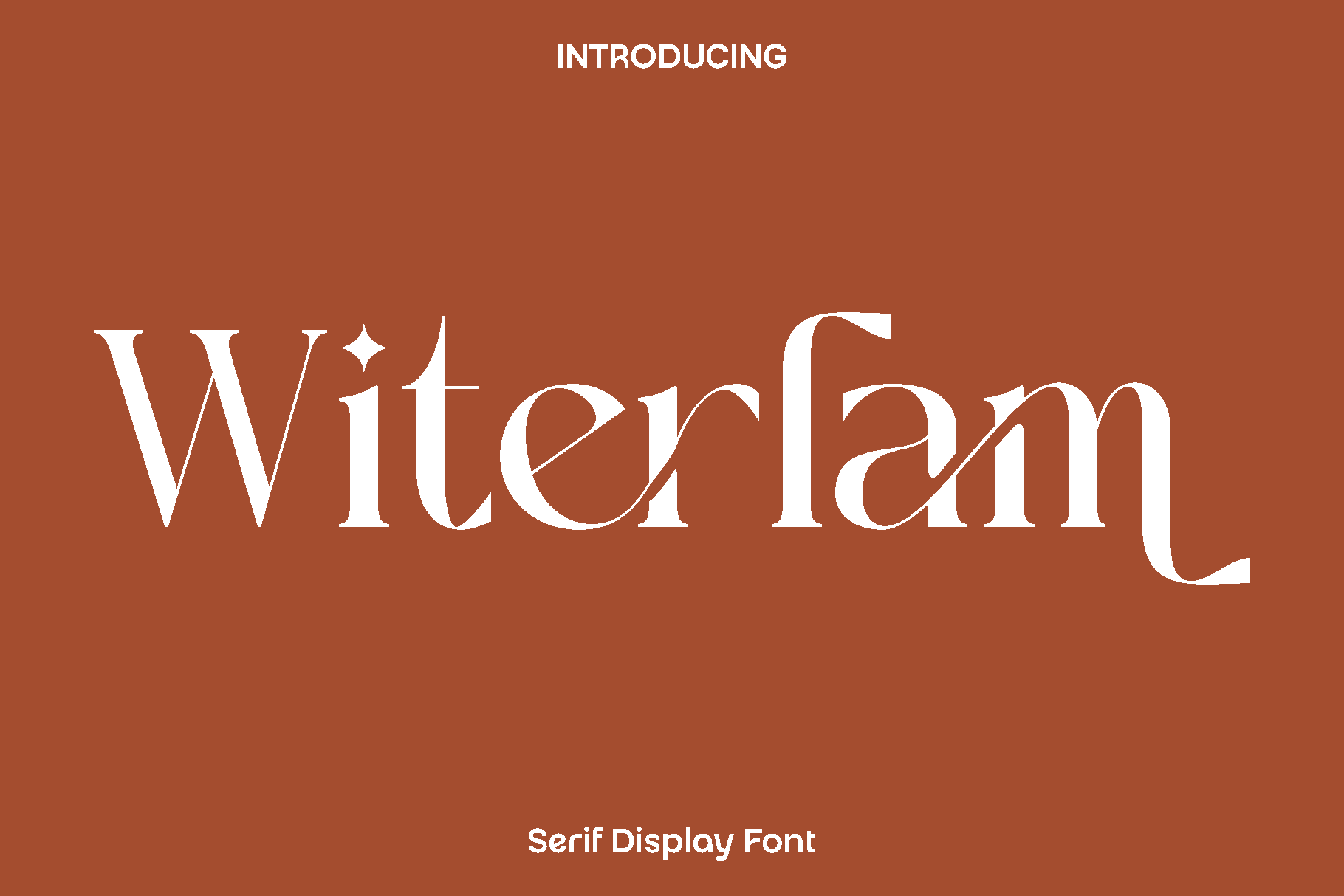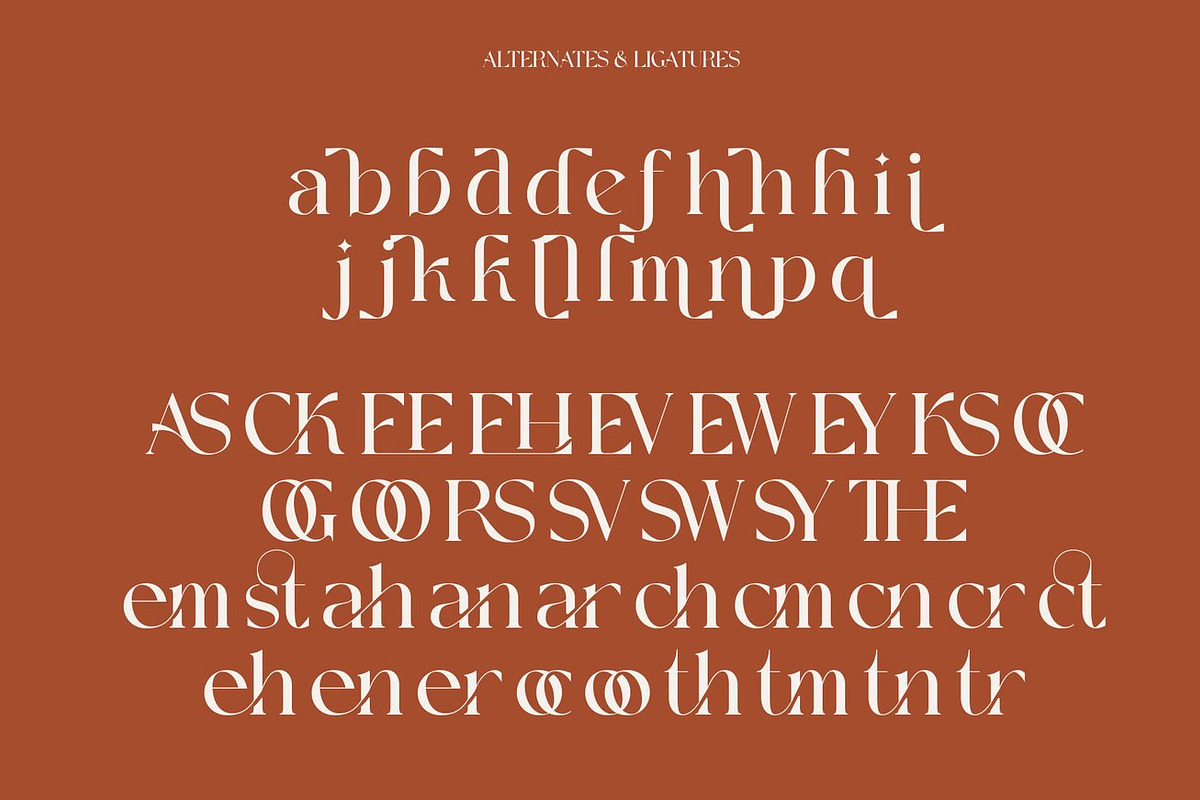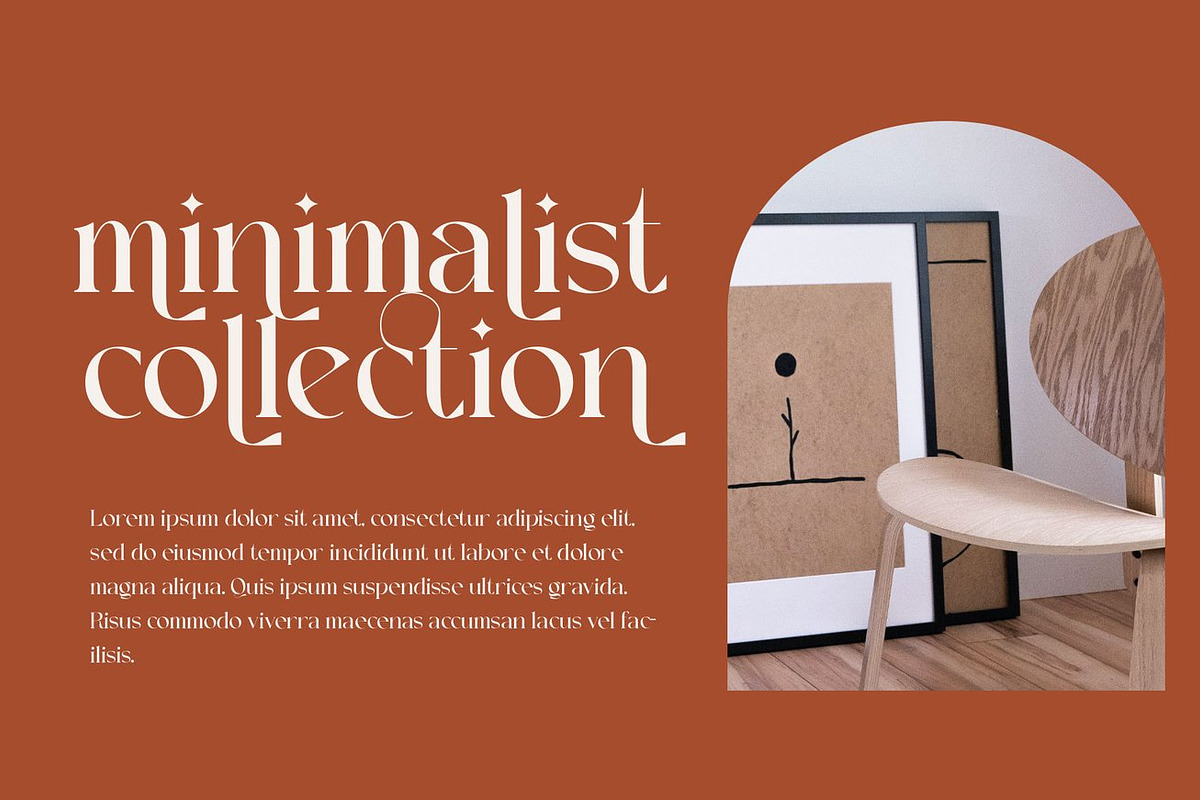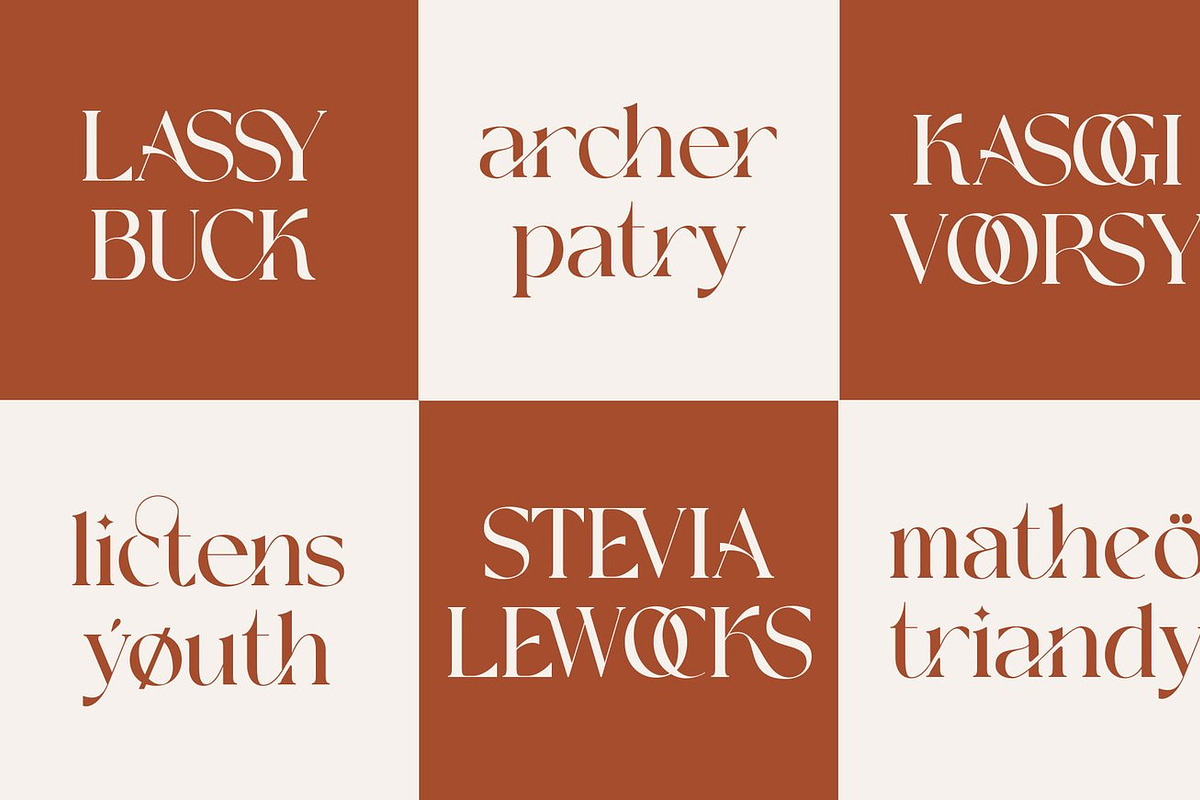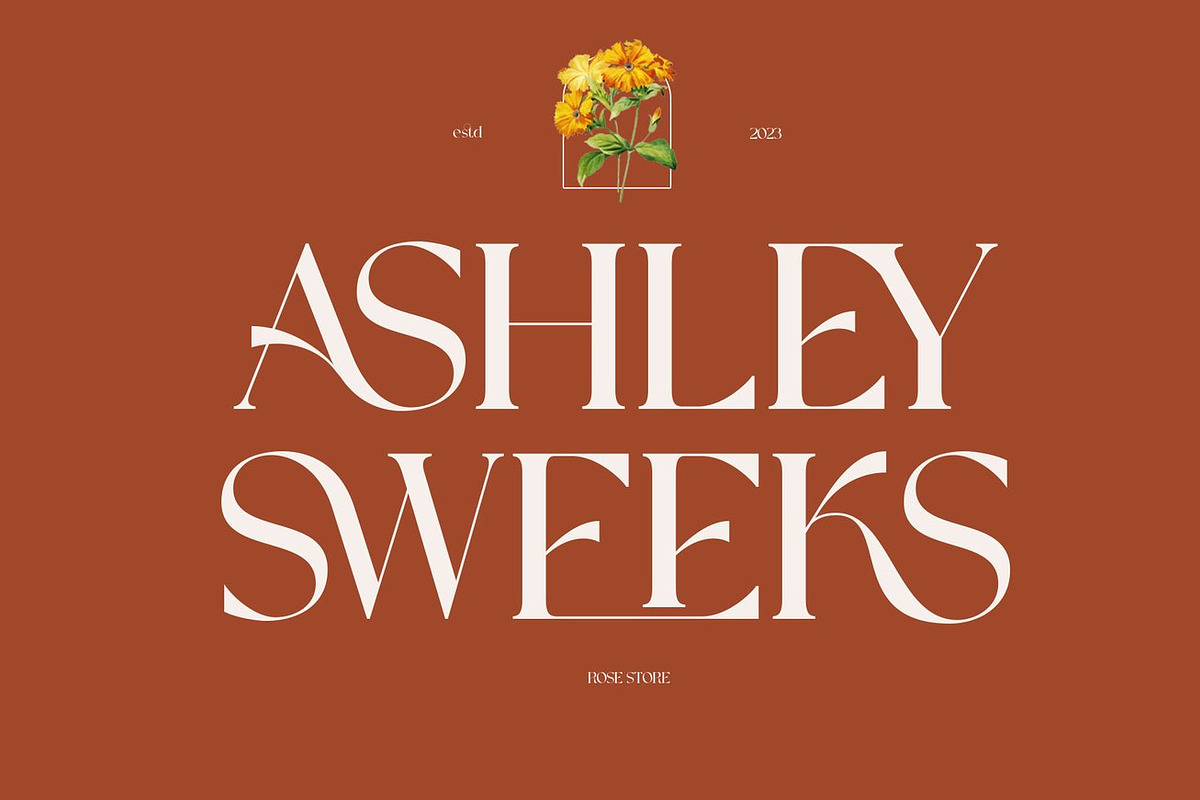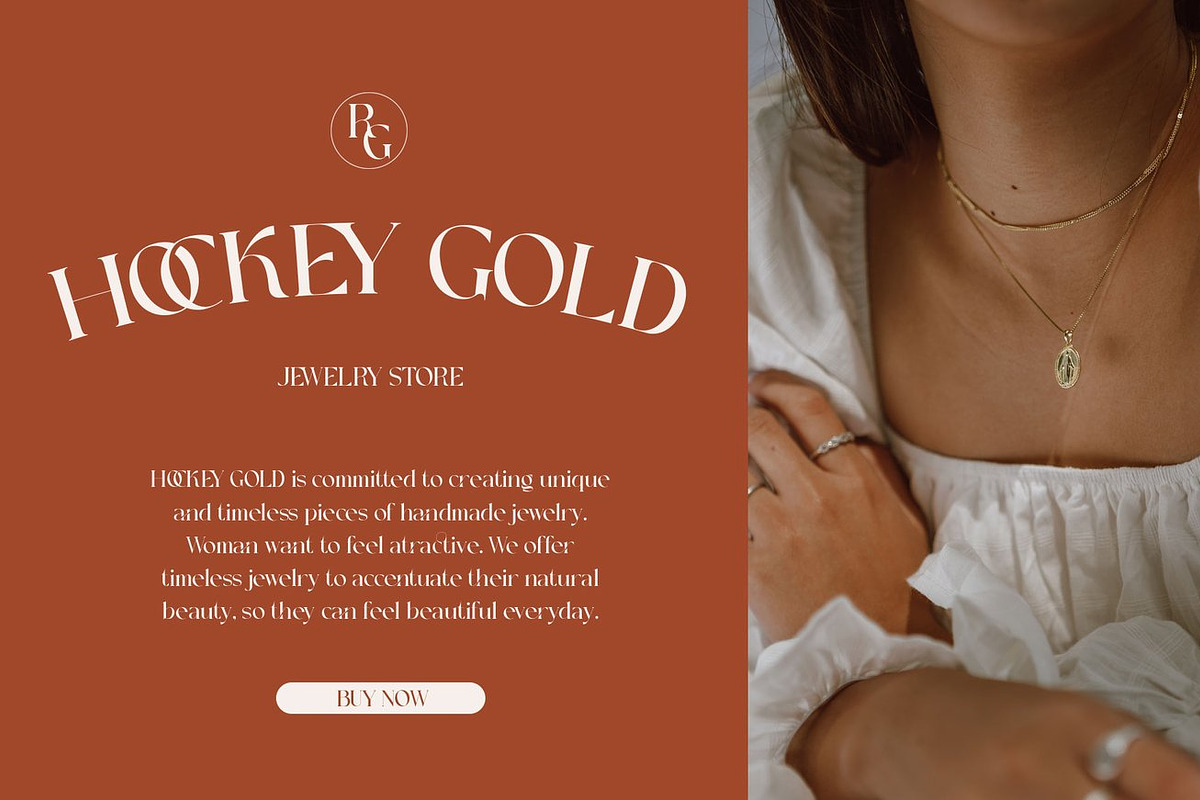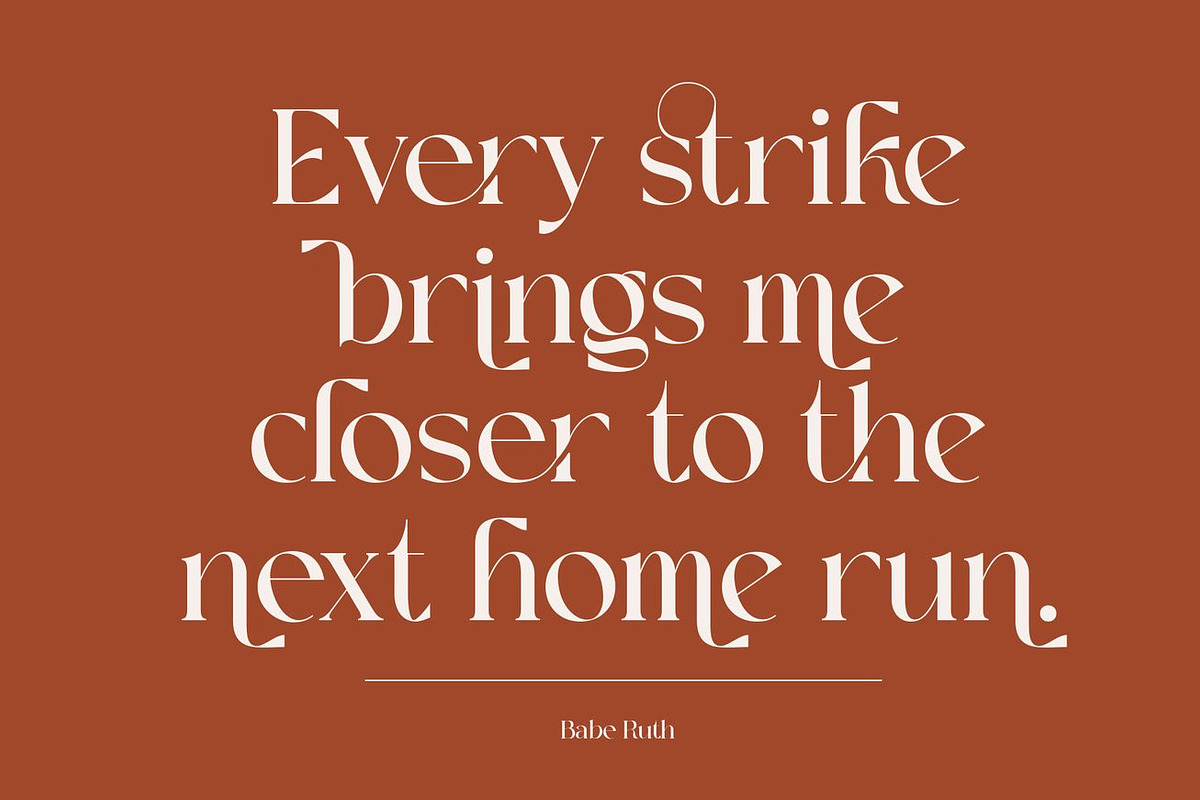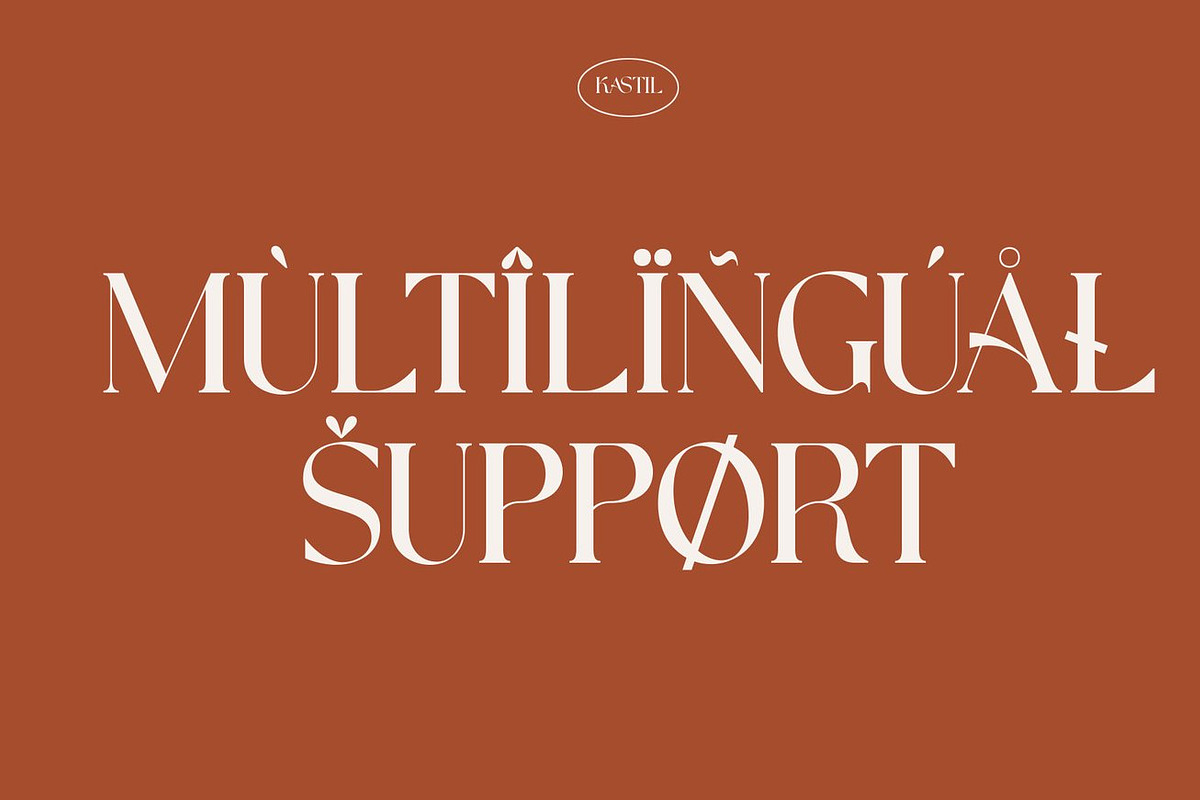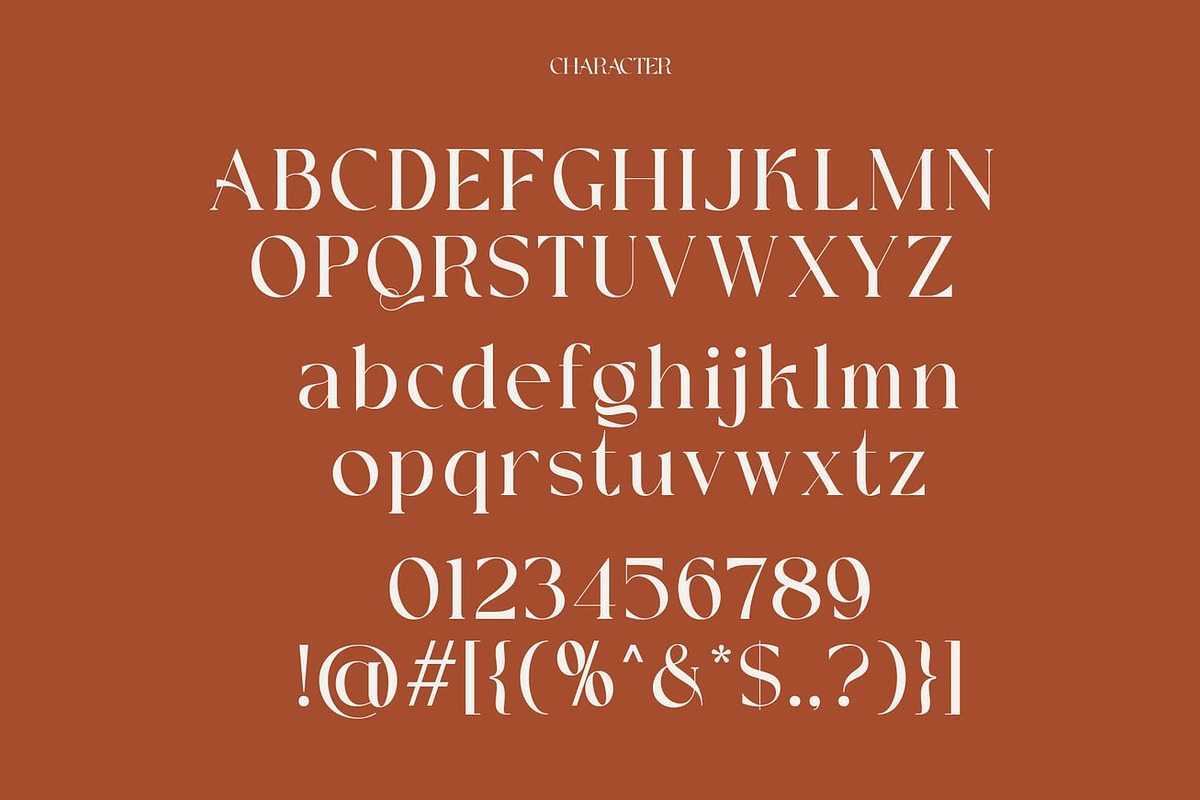
Witerlam - Serif Display Font
Witerlam is an elegant modern vintage font created to capture the charm of classic typography with a fresh contemporary twist. Inspired by timeless lettering styles and refined visual aesthetics, Witerlam blends sophistication with a subtle retro character, giving your designs a warm yet polished personality. Its graceful forms and carefully crafted slant version add movement and expression, allowing text to feel both stylish and distinctive.
Designed for versatility, Witerlam performs beautifully in both large headlines and smaller text applications. It shines in branding identities, logo design, product packaging, editorial layouts, magazine titles, social media graphics, and stylish overlays on photography. The font’s balanced proportions and vintage inspired details help create designs that feel authentic, elegant, and memorable.
Witerlam brings a sense of nostalgia while maintaining modern clarity, making it ideal for designers who want to evoke emotion and sophistication in their work. Whether you are building a premium brand look or adding a decorative touch to creative compositions, Witerlam delivers a refined visual presence that elevates every project.
Witerlam Font Features:
• Uppercase and lowercase characters
• Numerals and functional symbols
• Multilingual support
• Stylistic features included
• Slant version for added versatility